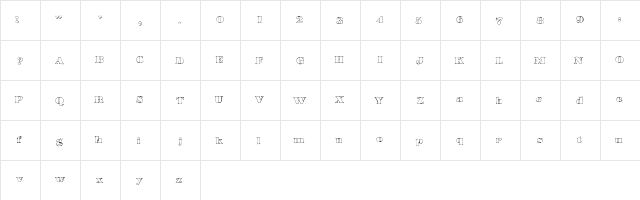
LowerHaight Regular
| Foundry | Xerographer Fonts |
| Designer | Xerographer Fonts Max Infeld |
Design Context for LowerHaight Typeface
LowerHaight offers clean, dependable letterforms without strong stylistic allegiance, making it a practical choice for designers who need flexibility.